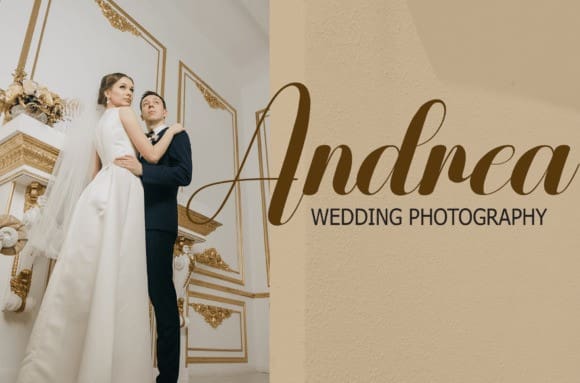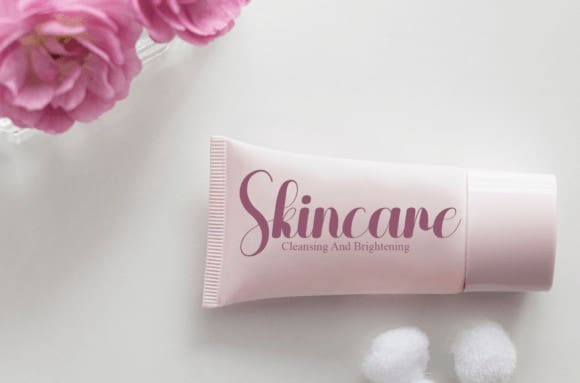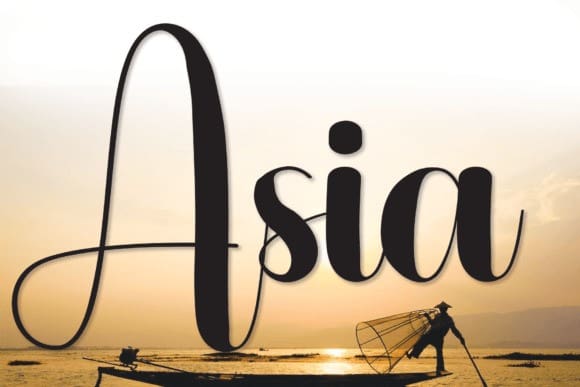
Asia Script Font
Asia Script Font is a mesmerizing work of art that captivates the eye with its fluid curves and delicate strokes. Each letter is carefully crafted with a sense of grace and elegance, evoking a timeless charm that exudes sophistication and refinement. Its exquisite details and intricate design make it a true masterpiece in the world of typography.